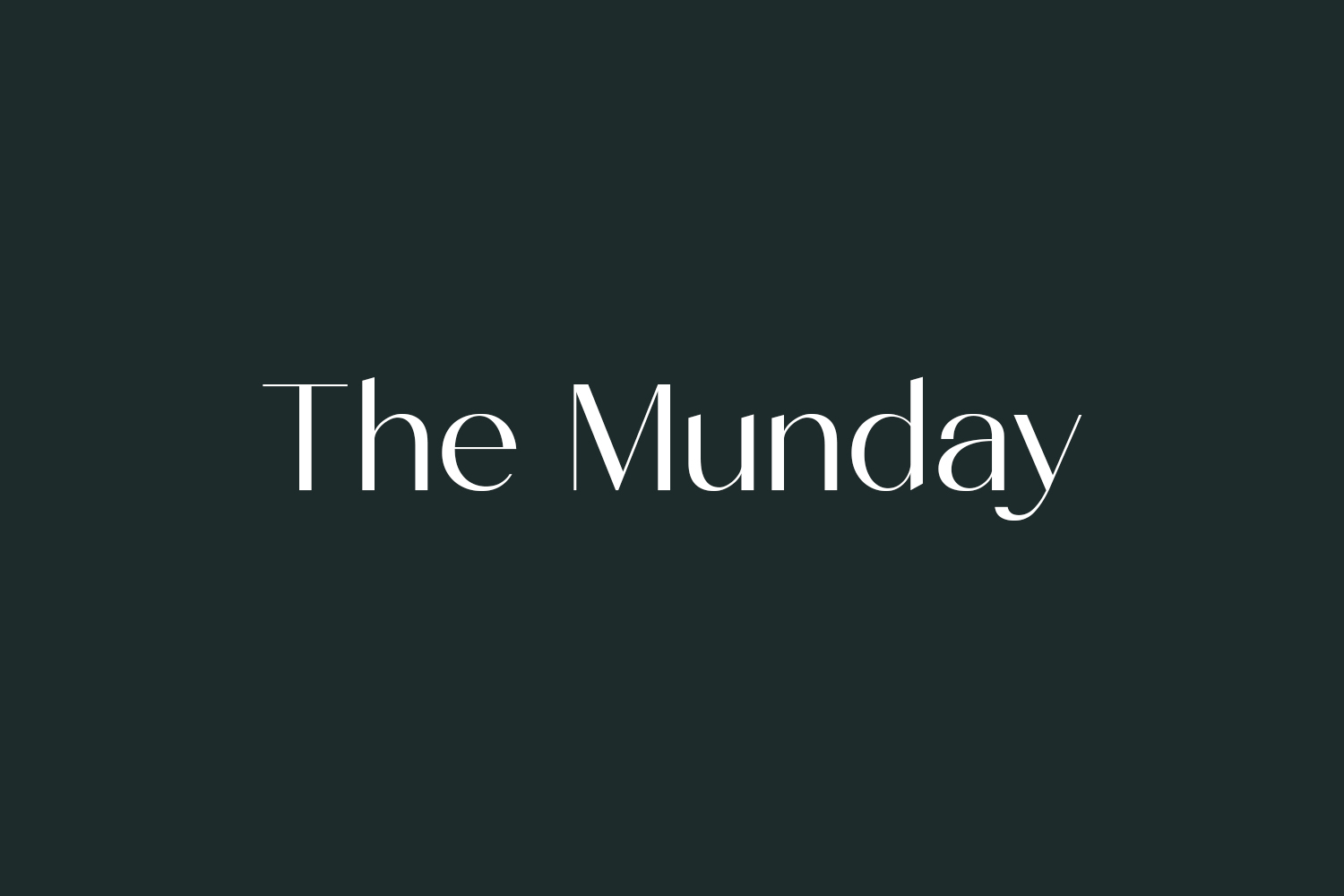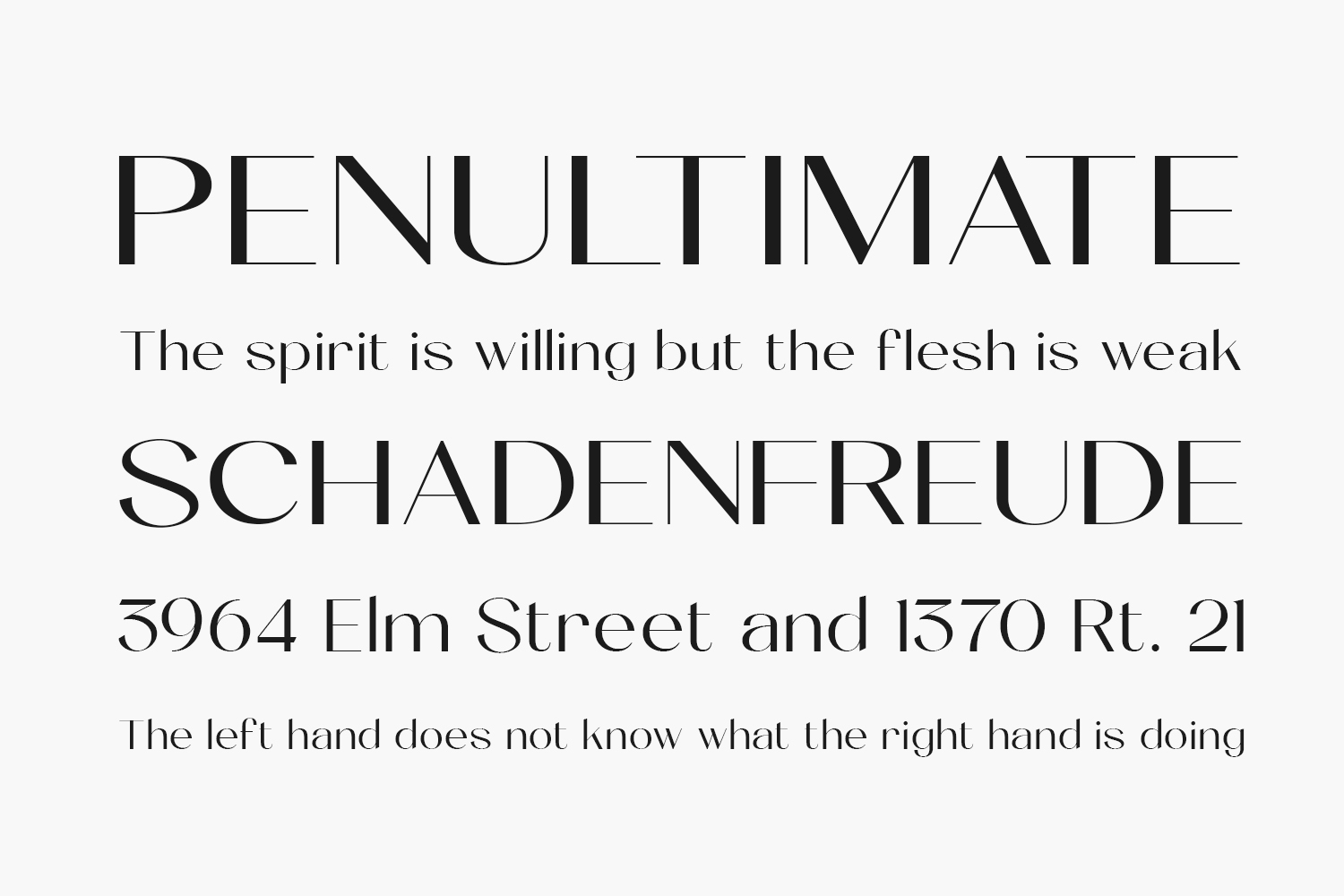
Introducing The Munday Free Font, a sans-serif font infused with nature-inspired leaf swashes. Its sleek and contemporary design makes it perfect for a multitude of projects including branding, titles, logos, and beyond. With its playful leaf swashes, The Munday adds a distinctive touch, ideal for projects centered around nature or organic themes. Elevate your designs with this versatile and charming font today. Download the font for free if you need it for personal use or purchase the full version for commercial use.
Designed by Alit Design